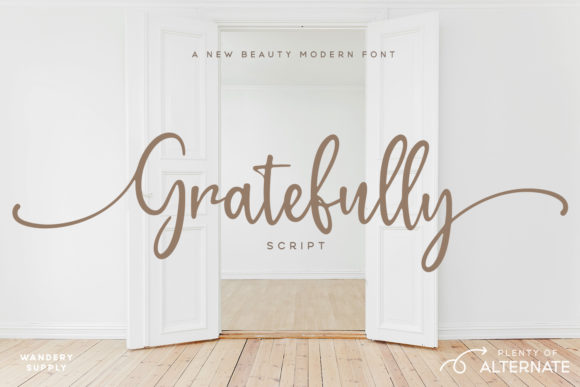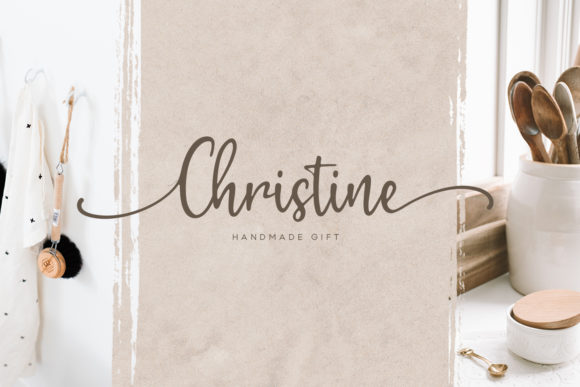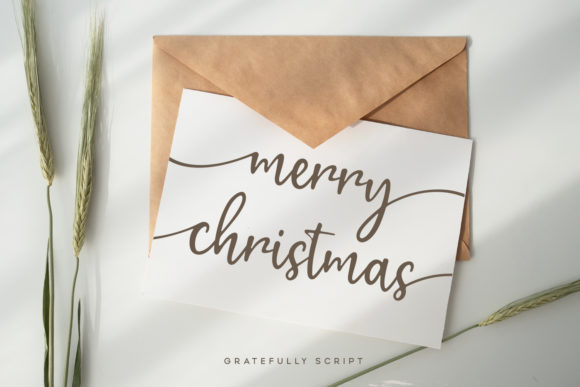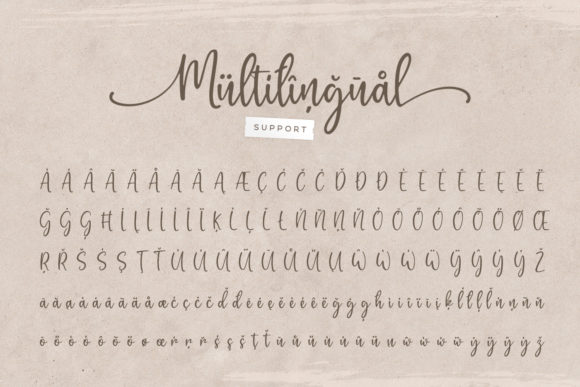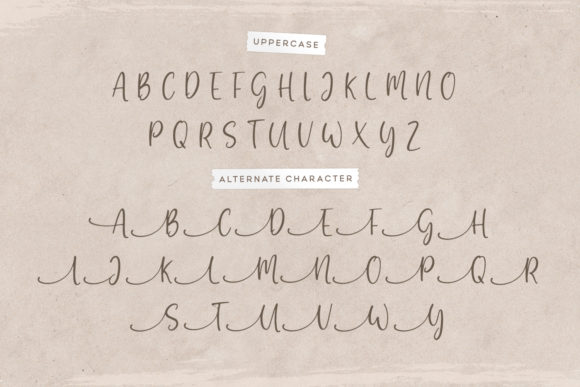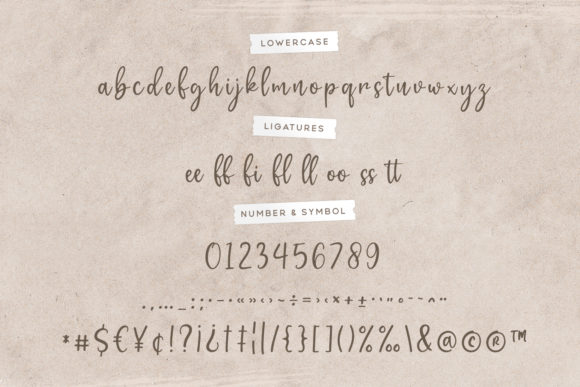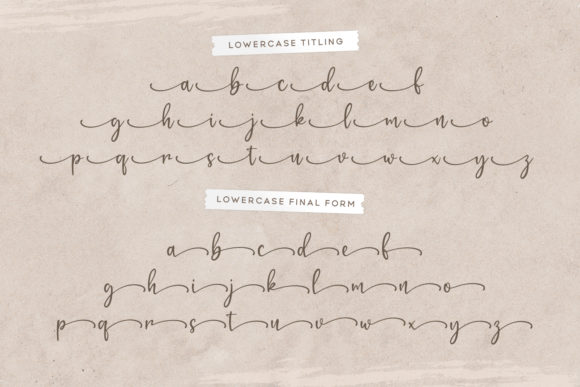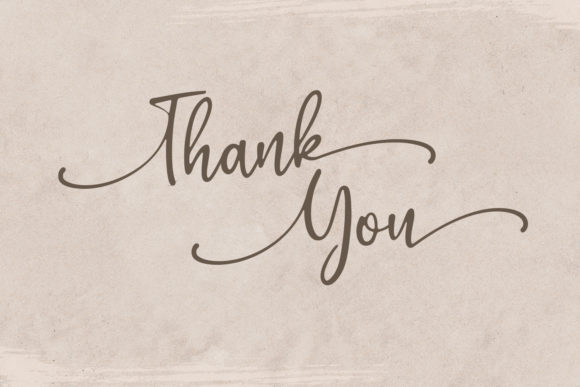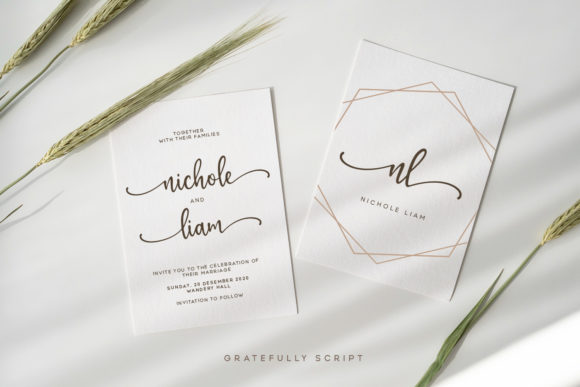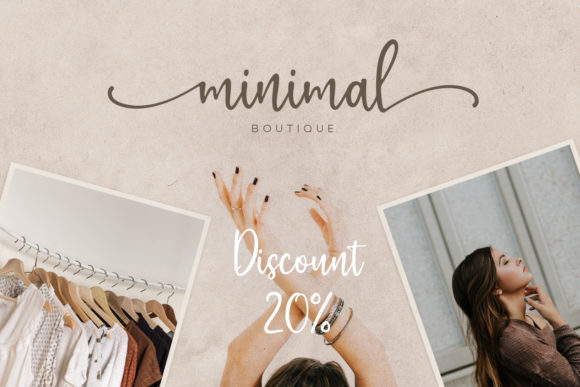
Gratefully Font
About Gratefully Font
Gratefully is a minimalist and beautiful script font. Its casual charm makes it appear wonderfully down-to-earth, readable and, ultimately, incredibly versatile. Gratefully will look outstanding in any context, whether it’s being used on busy backgrounds or as a standalone headline!